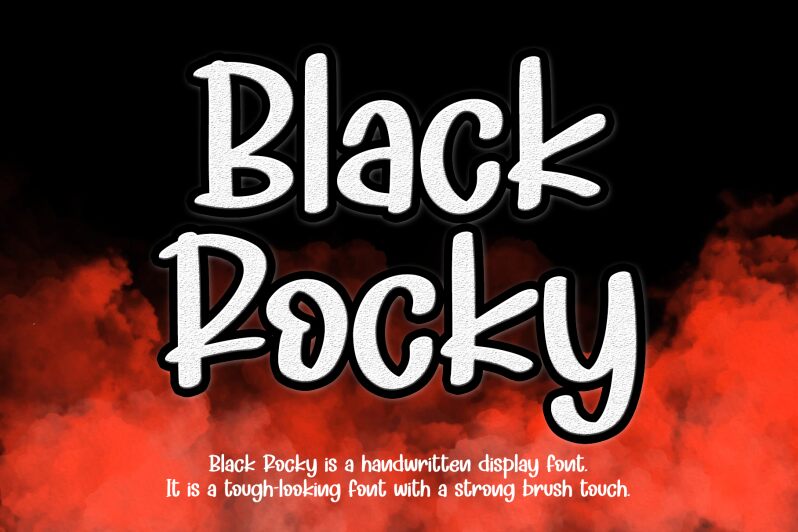
Black Rocky font by Letterafa Studio is a free handwritten font uprighted with a casual vibe and energetic presence. Each character is formed of a strong brush touch for an impactful aesthetic. This informal feel that the font has allowed it to be suitable for even contemporary application usage like teenage visual projects.
Incorporate this free font in sketches, greeting cards, postcards, T-shirts, posters, book covers, branding, advertisement, packaging, websites, badges, logos, or mug designs. It can also be of great use in video games and digital apps targeting kids or teenagers.